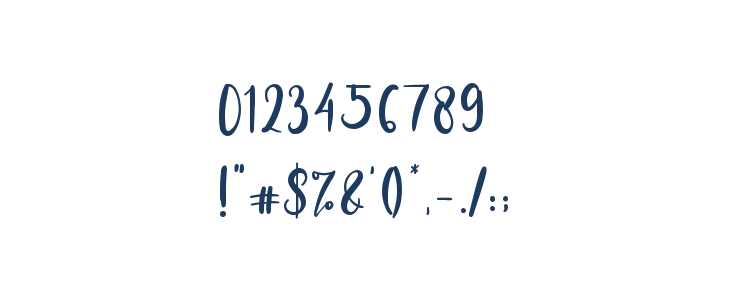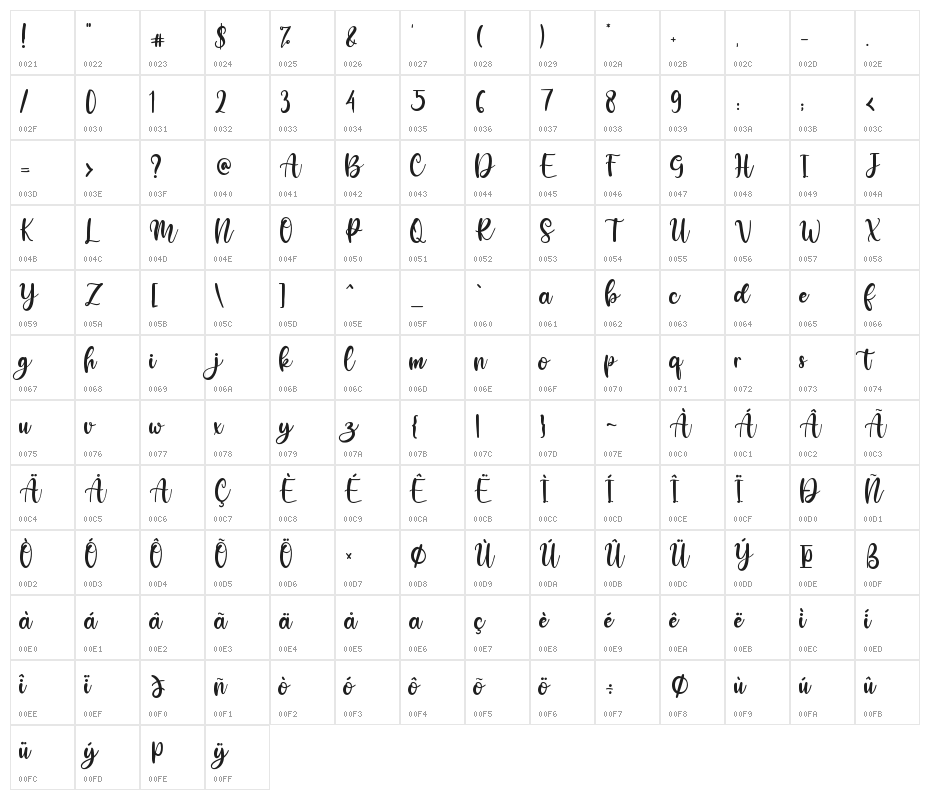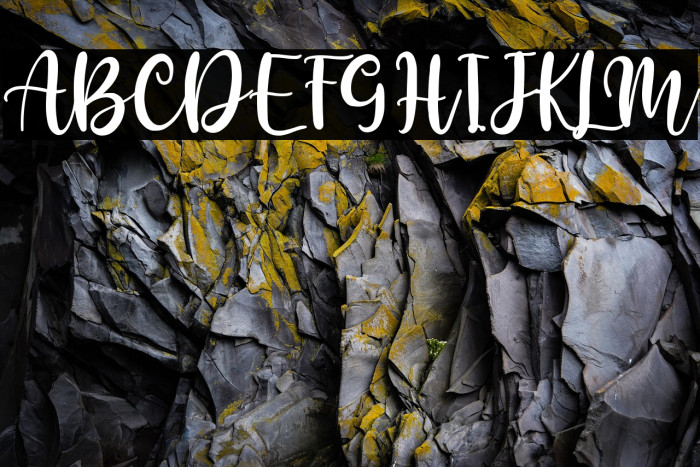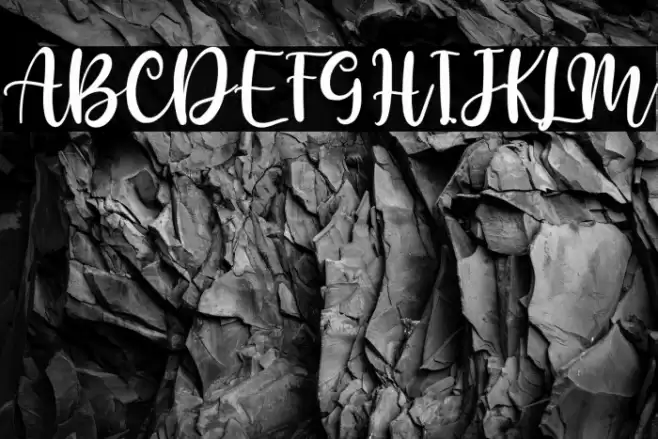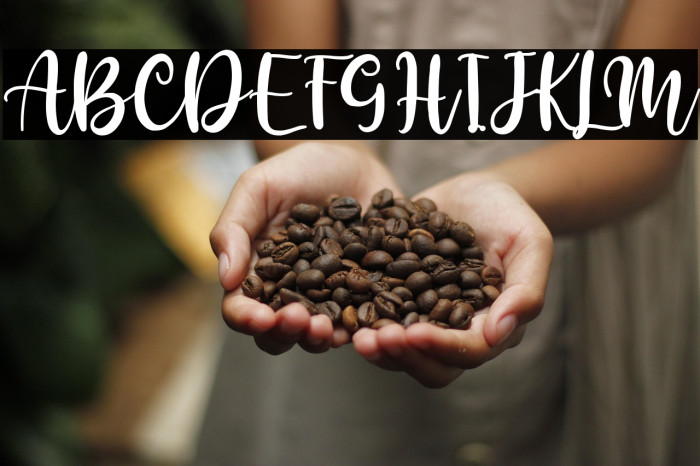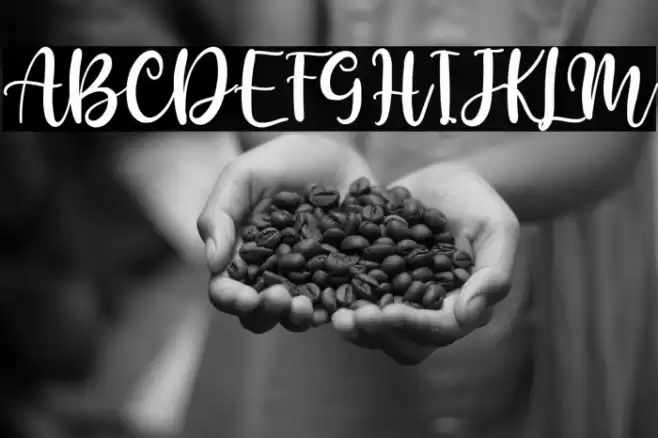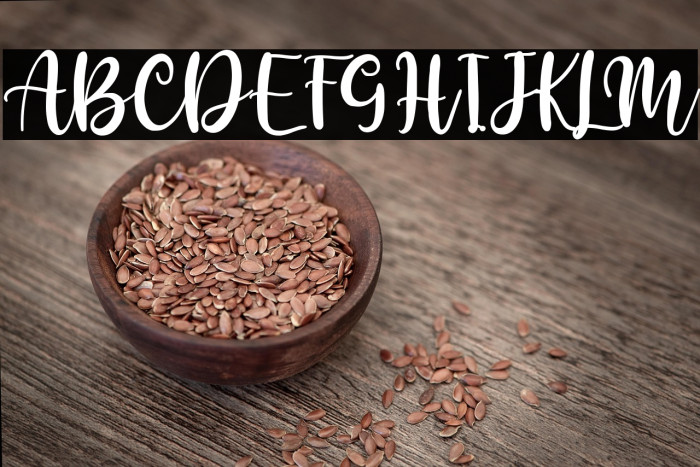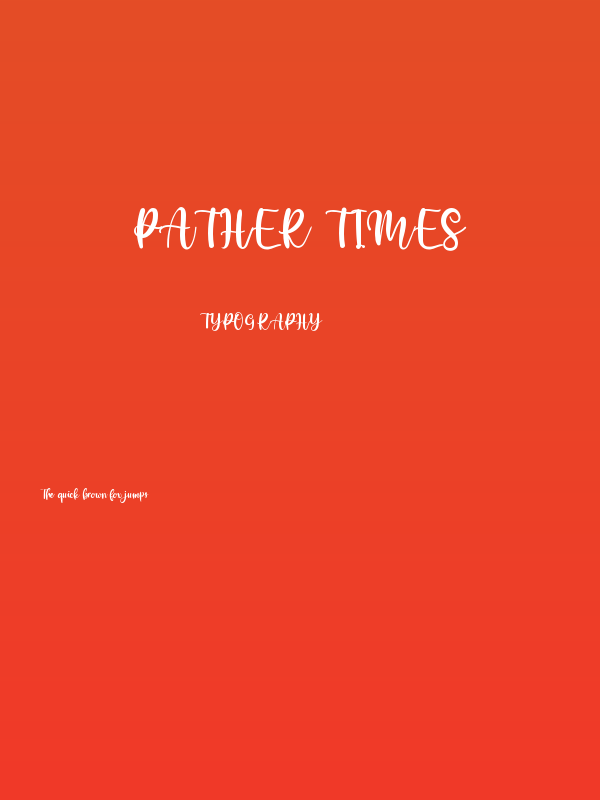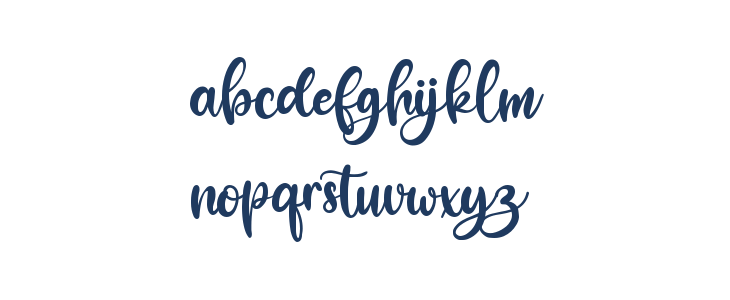
Pather Times Font
Pather Times Description
This font exhibits a lively and flowing script style, characterized by its bold and expressive strokes. The uppercase letters are tall and elegant, with a slight slant that adds a dynamic feel. The lowercase letters are more rounded and connected, enhancing the cursive appearance. The numbers maintain the same playful and bold aesthetic, making them stand out. Special characters are crafted with the same attention to detail, ensuring consistency throughout. This font's overall look is both modern and artistic, perfect for projects that require a personal touch.
| Proposed Projects | Ideal for wedding invitations, greeting cards, branding, and social media graphics. |